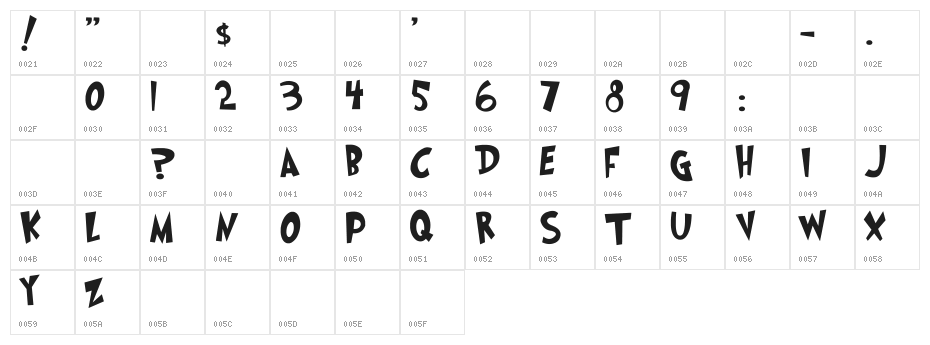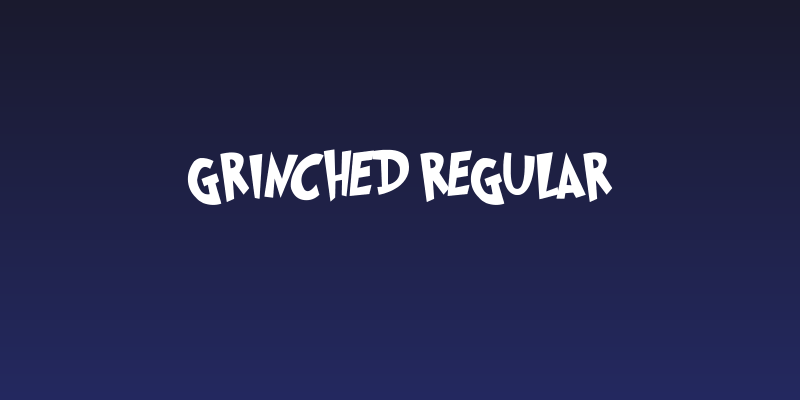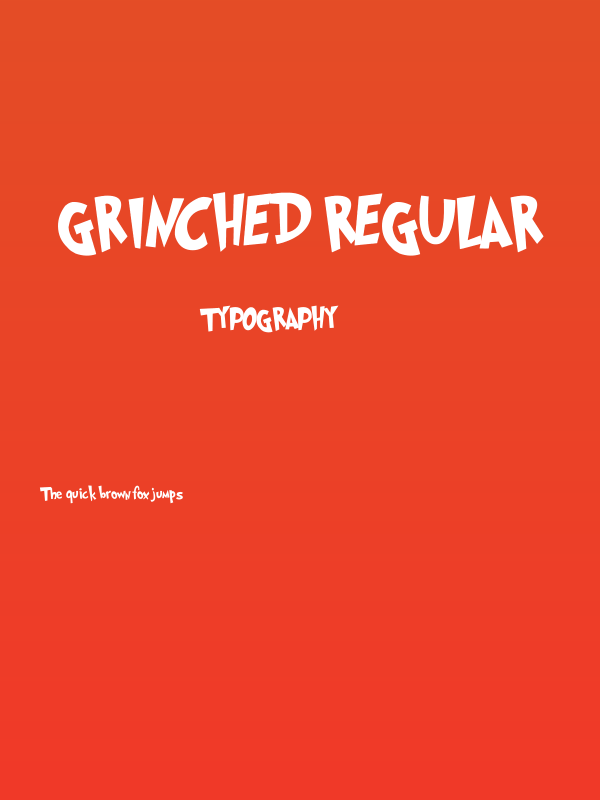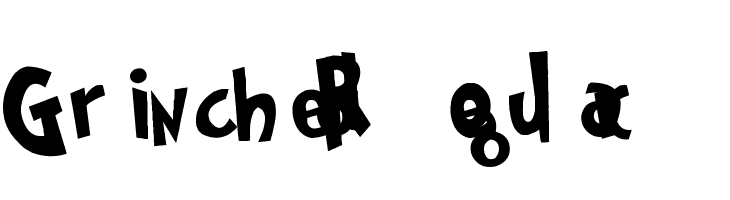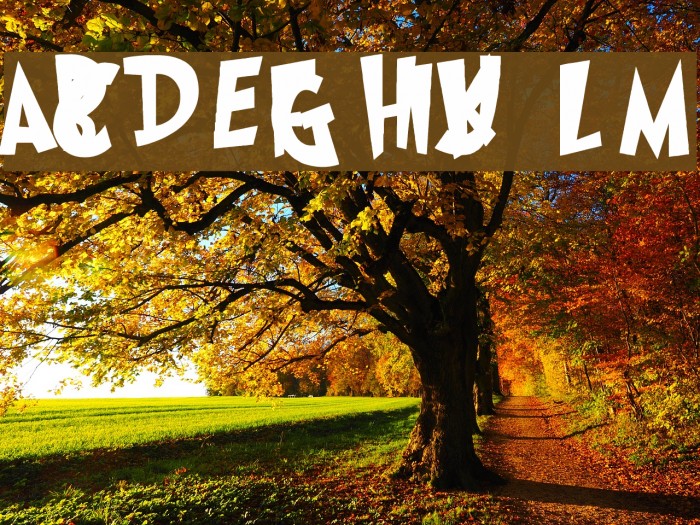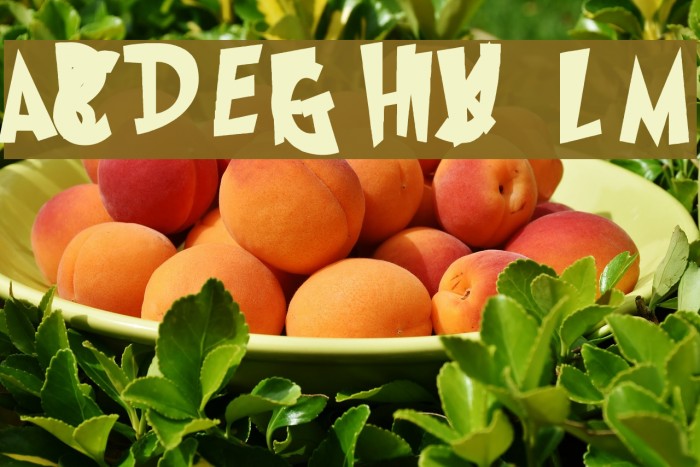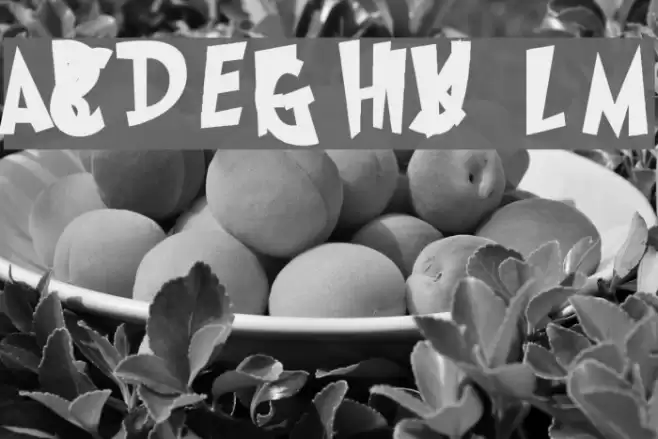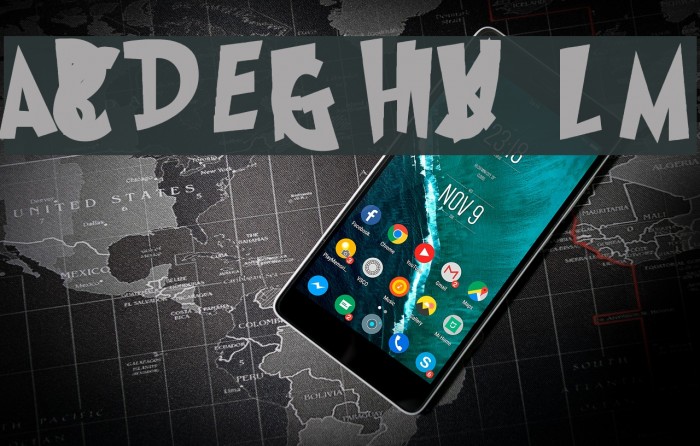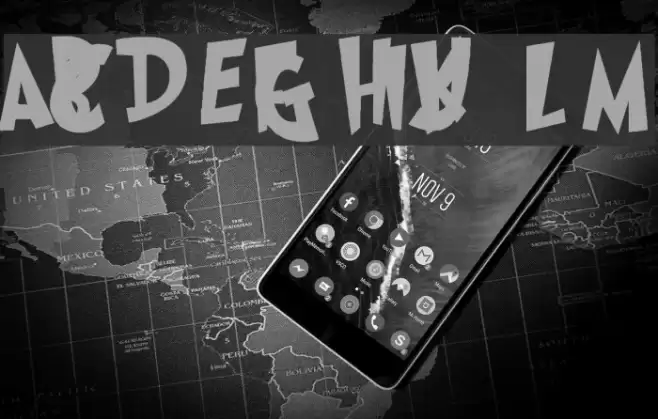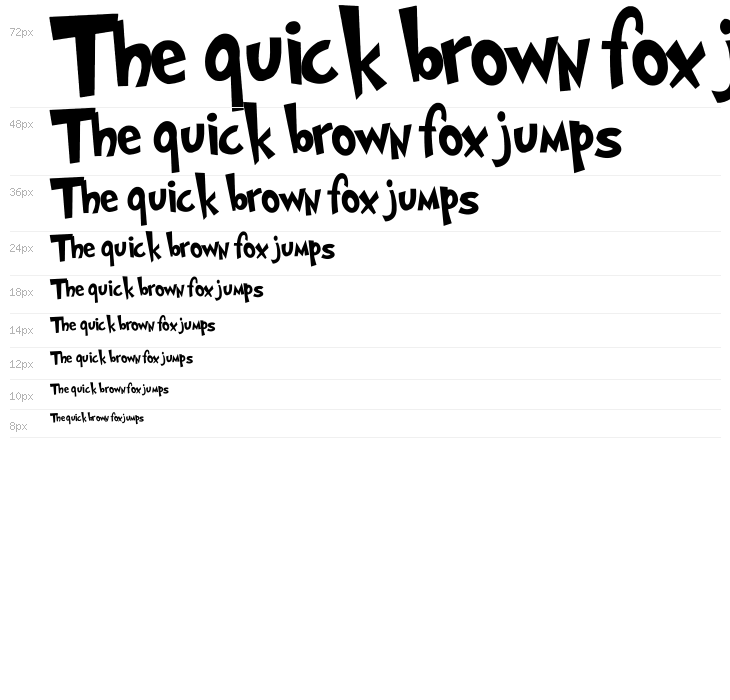
Grinched Regular Font
Grinched Regular Description
This font features a playful and whimsical design, characterized by its irregular and jagged edges that give it a hand-drawn appearance. The letters are bold and slightly tilted, creating a sense of movement and energy. The uppercase and lowercase letters maintain a consistent style, with exaggerated curves and angles that add to its quirky charm. Numbers and special characters follow the same playful aesthetic, making it suitable for creative and informal projects. The font's unique style is reminiscent of a cartoonish or festive theme, perfect for capturing attention and adding a fun element to any design.
| Overall Style | Whimsical, Playful |
| Proposed Projects | Ideal for holiday cards, children's book covers, playful branding, and festive event invitations. |